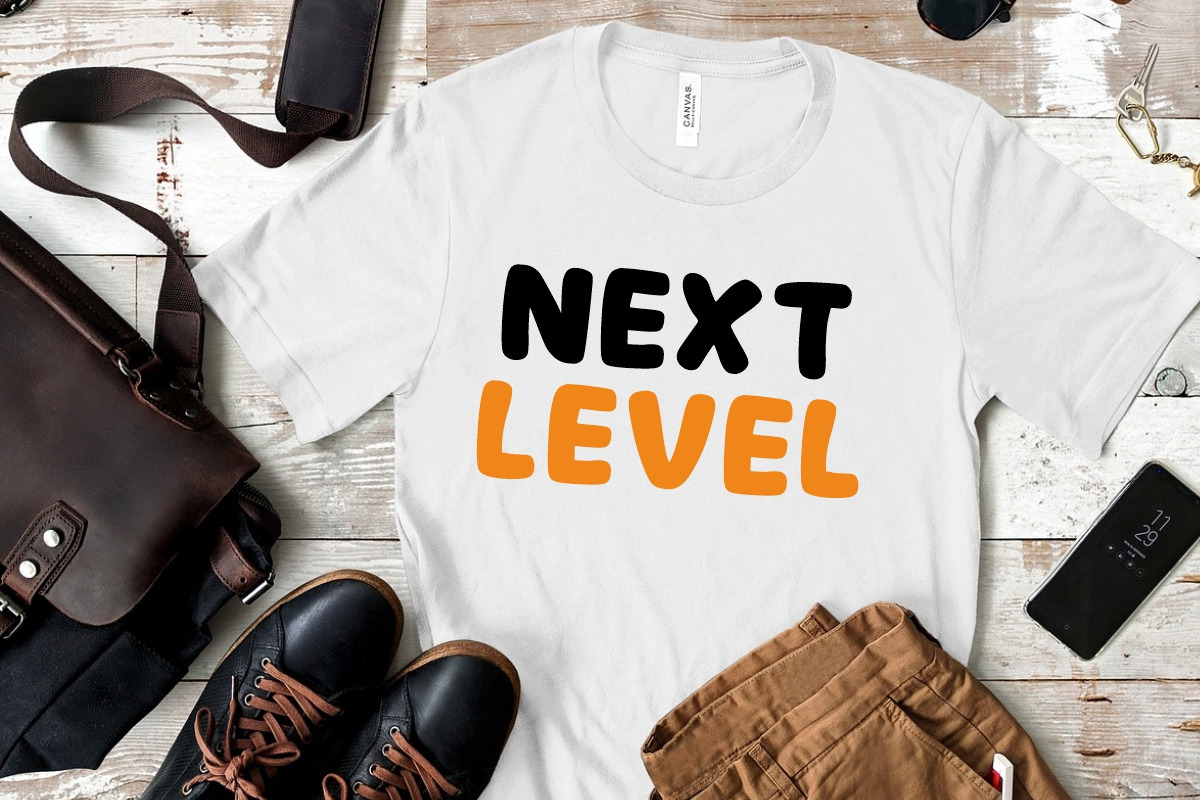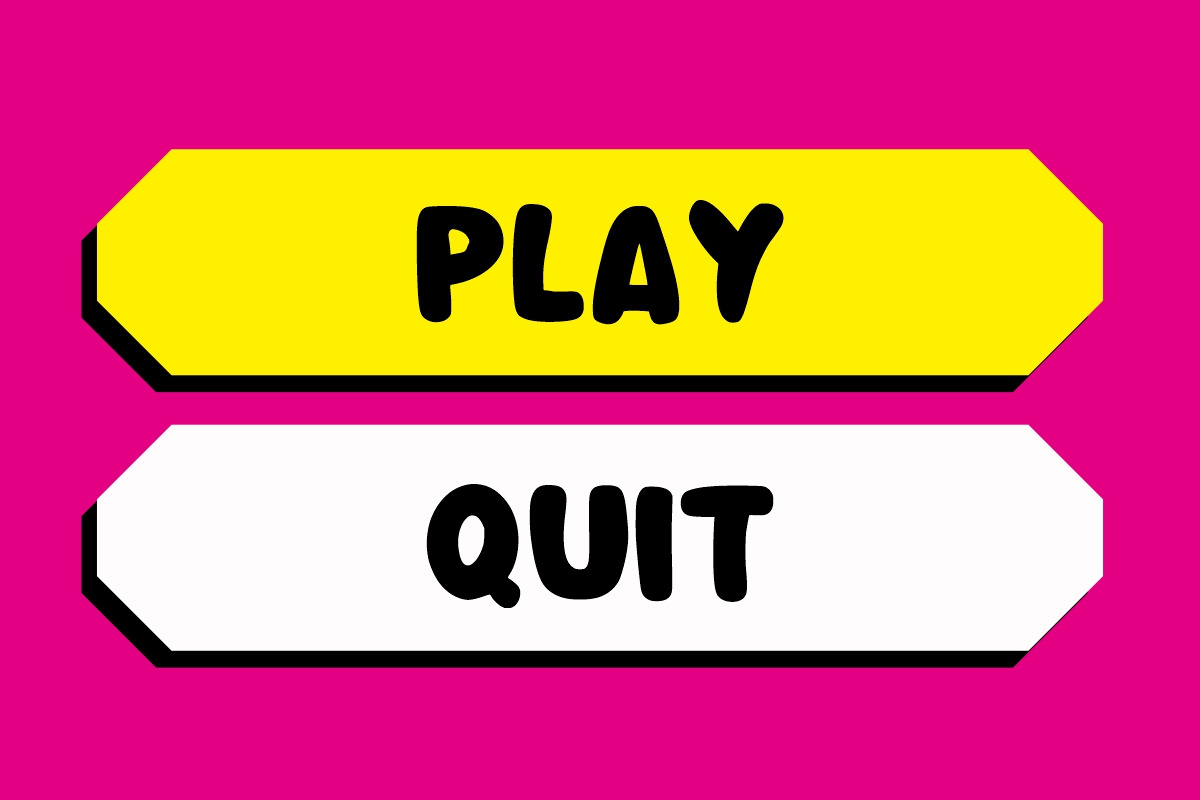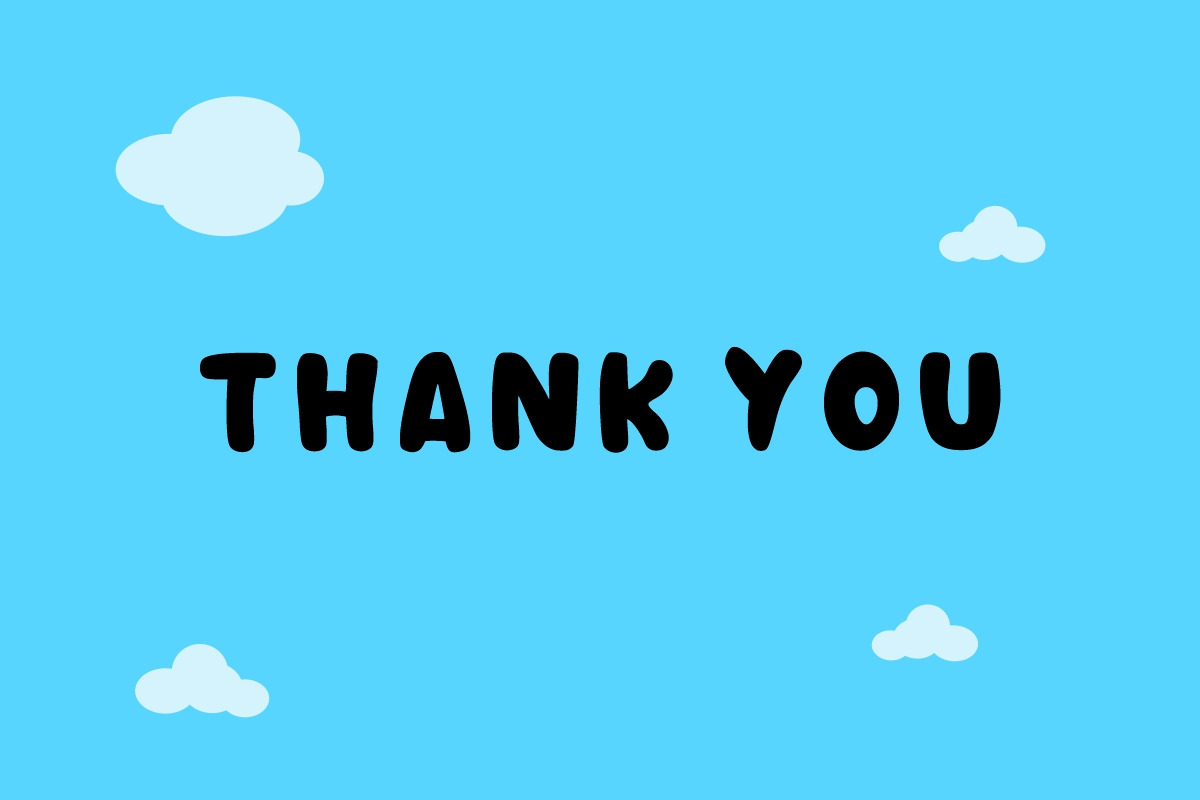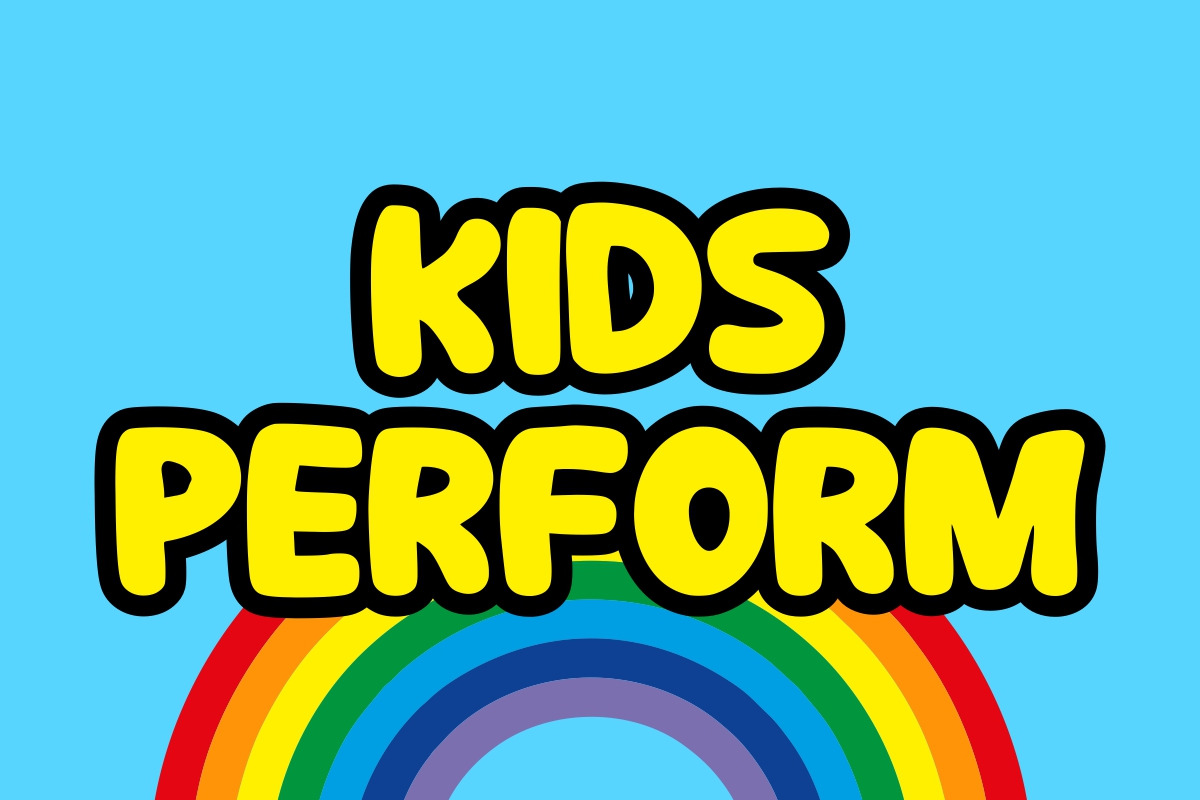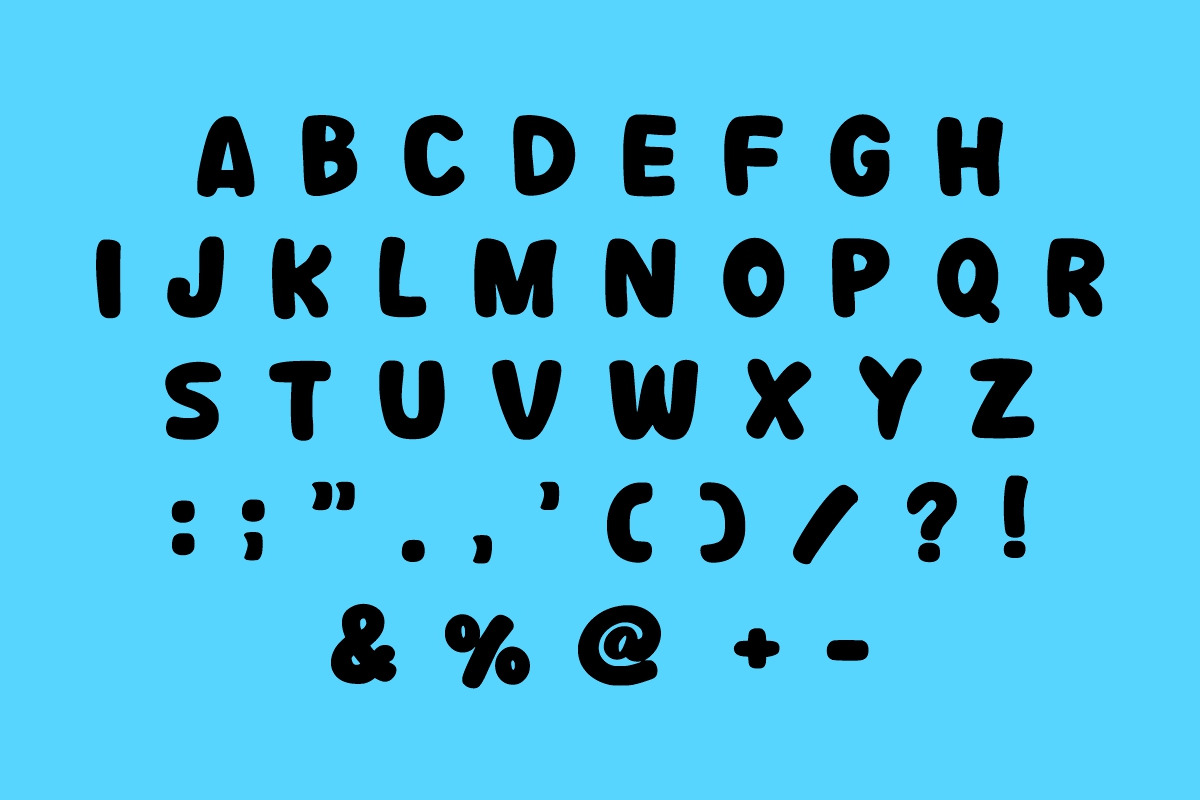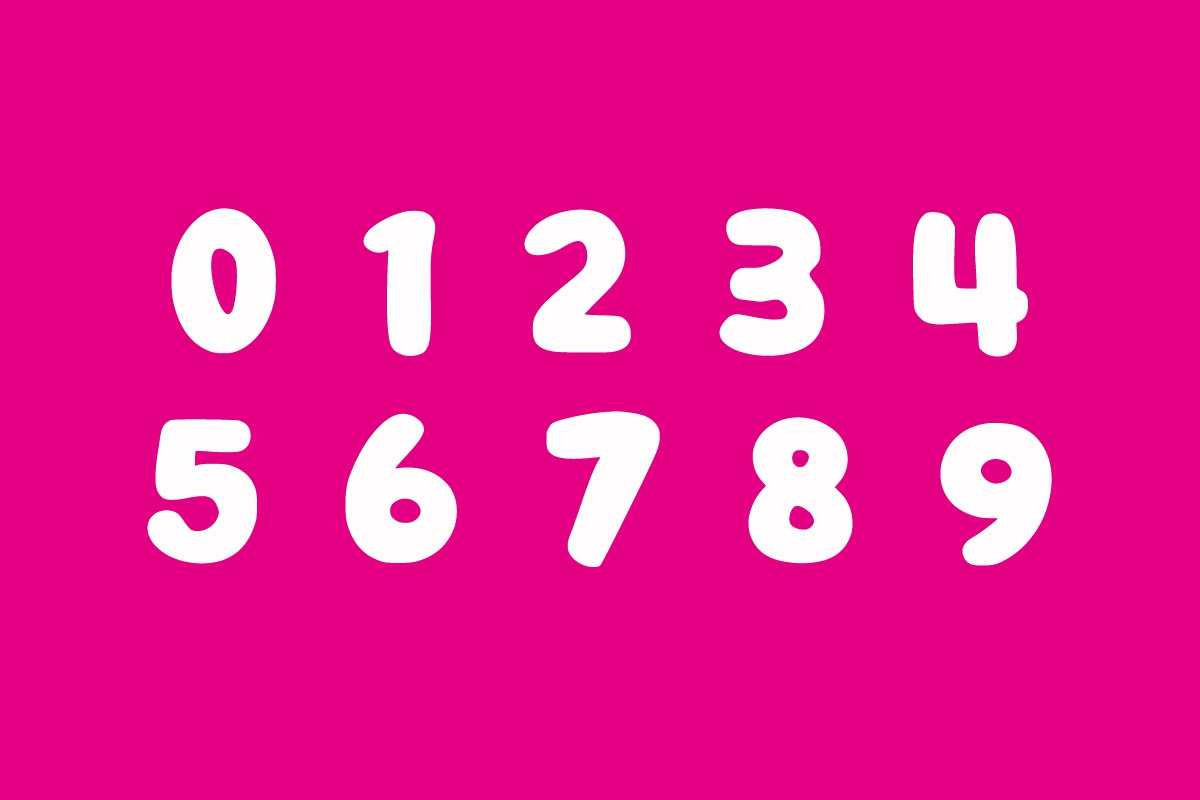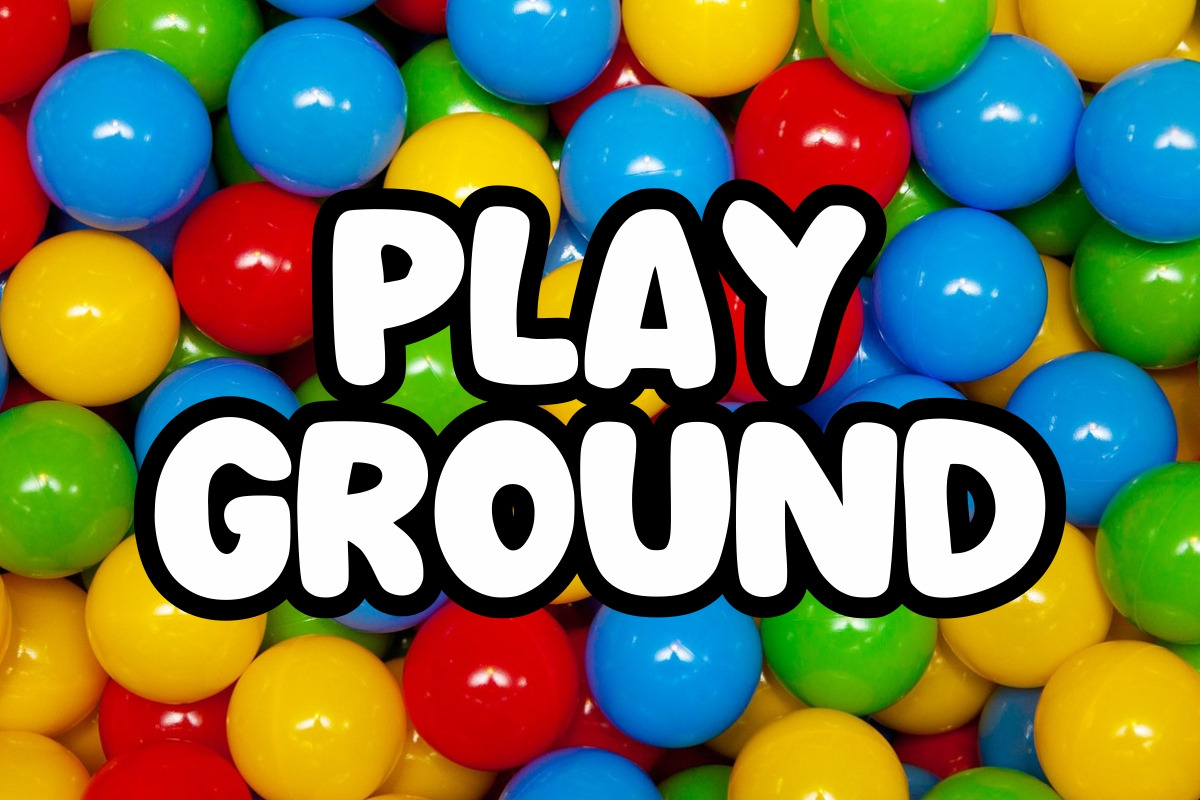
Magic Rainbow
Magic Rainbow is a childish, bold, easy-to-read display font that conveys impeccable friendliness. Whether you’re using it for crafts, digital design, presentations, or greeting cards, this font has the potential to become your favorite go-to font, no matter the occasion!